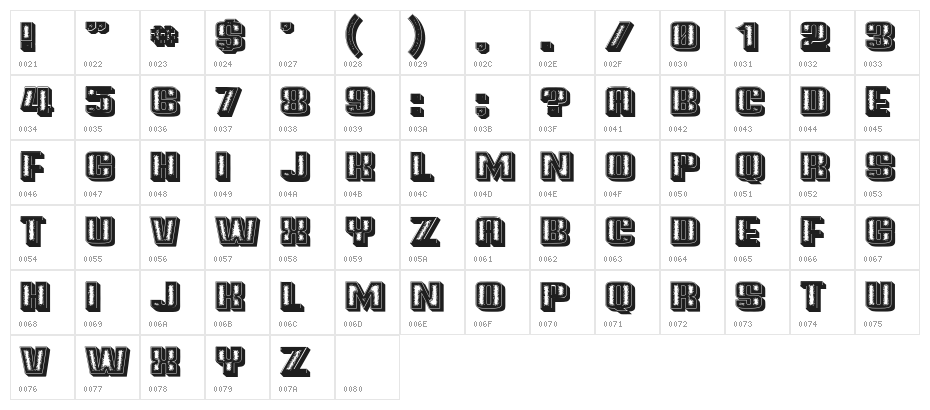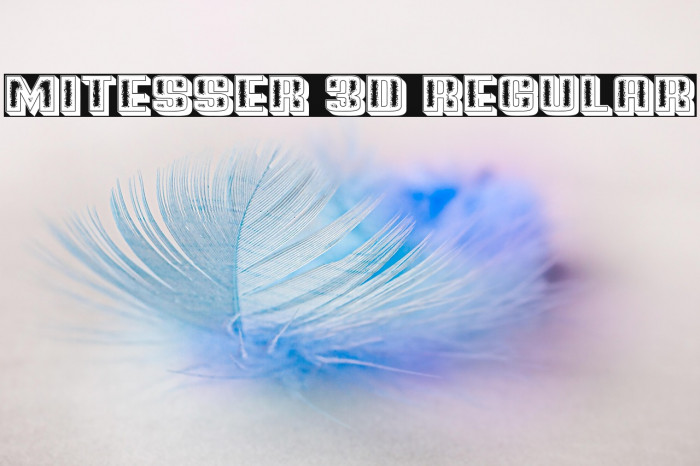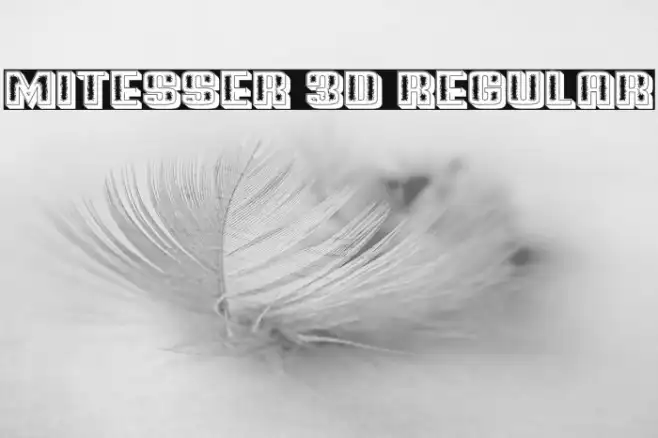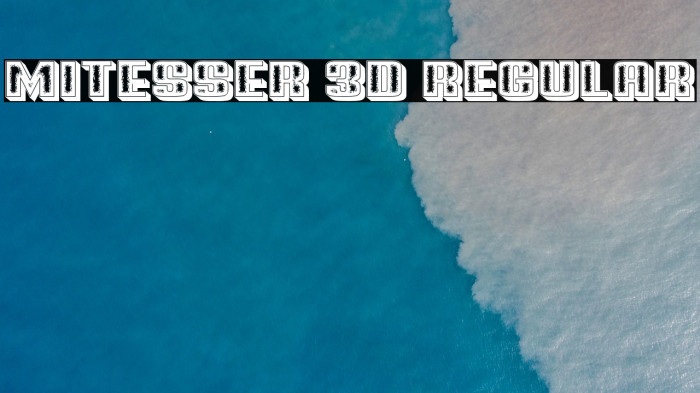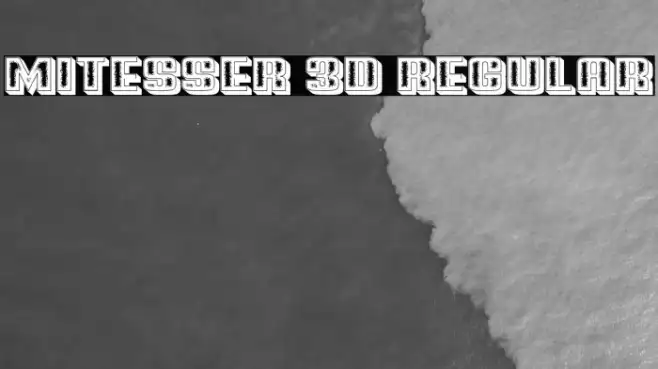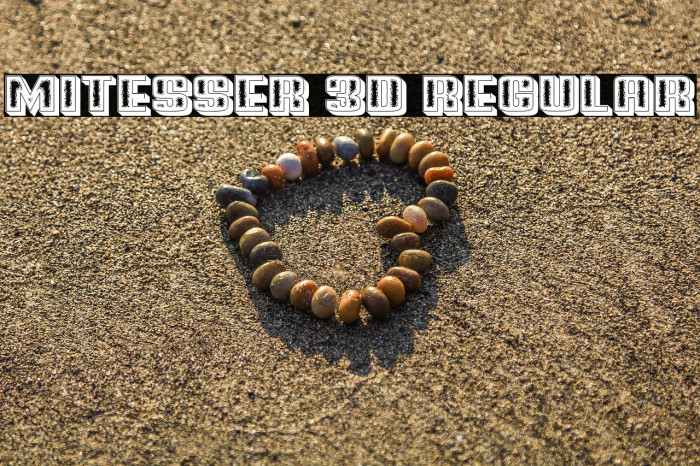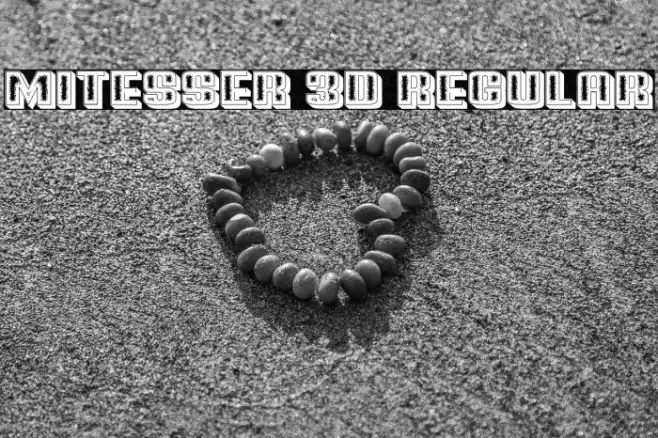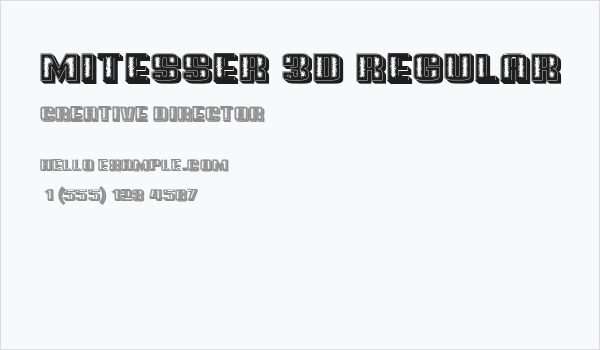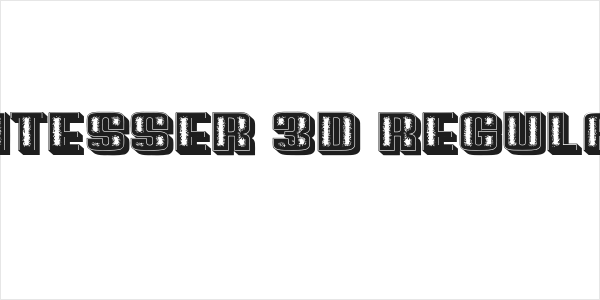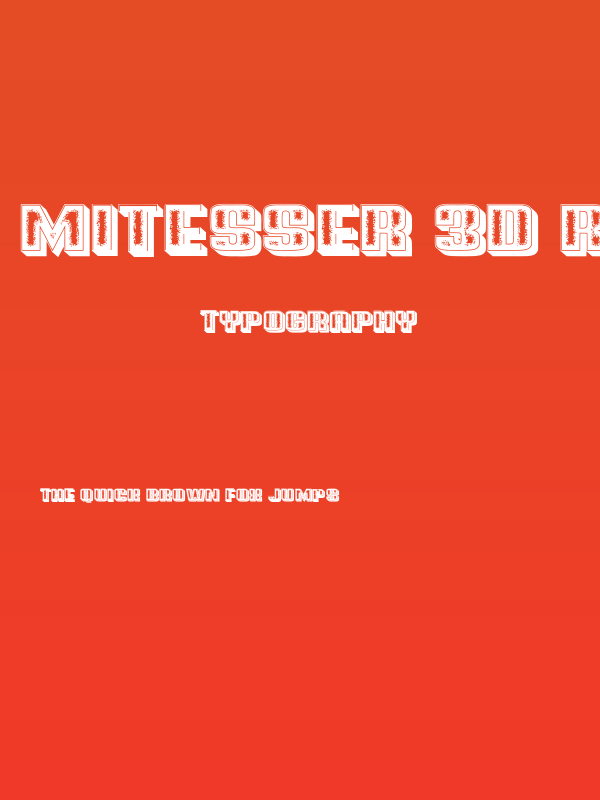
Mitesser 3D Regular Font
Mitesser 3D Regular Description
This font features a bold, three-dimensional design with a distressed texture, giving it a rugged and industrial feel. The characters are outlined with a thick black border, enhancing the 3D effect and making each letter stand out prominently. The internal texture appears worn and scratched, adding a vintage or grunge aesthetic. The font is highly decorative, making it suitable for eye-catching designs. It includes a full set of uppercase letters, numbers, and a variety of special characters, all maintaining the same bold and textured style.
| Overall Style | Vintage, Industrial, Grunge |
| Proposed Projects | Ideal for posters, logos, album covers, and any project needing a bold, vintage-industrial aesthetic. |